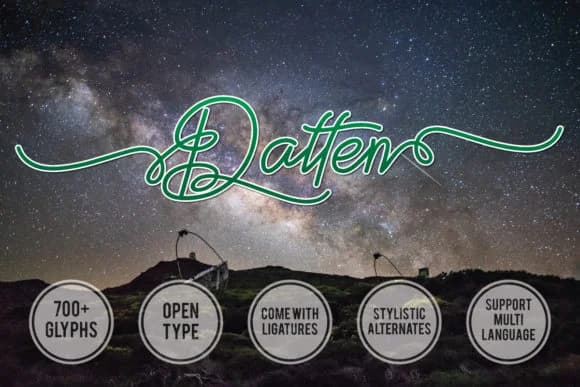
You're designing wedding invitation suites and need something that feels personal without looking chaotic. Datten Font, created by Great's St, is a contemporary handwritten script with natural flowing letterforms that bring real character to layouts. The typeface shines on boutique skincare packaging, Etsy product labels, greeting card designs, and DIY craft signage, where that touch of personality separates forgettable work from designs people actually remember and want to share.
The script reads crisp and legible even at smaller sizes, which keeps it quite functional for commercial work despite its hand-drawn quality. Each letter carries authenticity that echoes real pen work, but the consistency throughout prevents the aesthetic from becoming scattered or hard to read. This balance is what makes Datten so useful across different types of projects. You'll find it works just as well on social media graphics, logo sketches, and short passages of body text, giving designs an intentional, thoughtful character that feels genuine rather than forced.
At larger display sizes, the weight maintains clarity while preserving that personal hand-drawn essence. The consistent letterform flow translates beautifully across both digital and printed materials. Grab Datten on Creative Fabrica when you need a font that brings warmth and authentic personality to your work.
- Elegant, Flowing, Datten
Datten Font is a script font that shines as a display or heading face. Pair it with a clean sans-serif or serif font for body text β the contrast creates a clear hierarchy while the two styles stay balanced and easy to read.
Datten Font